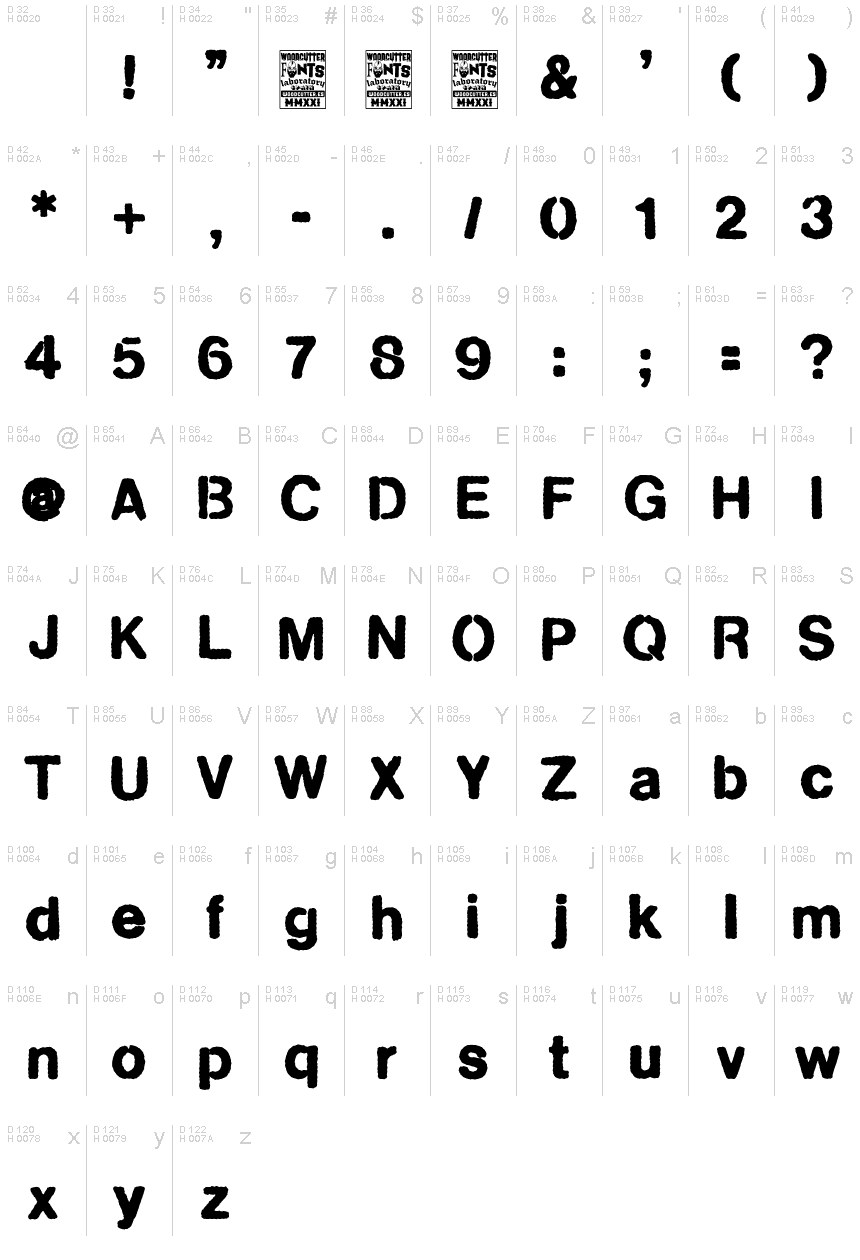
Drama Protocols
Drama Protocols is a bold and edgy display font designed by Woodcutter Manero. Its eroded style gives a grunge effect that is perfect for designs that require a vintage, distressed look. Drama Protocols is ideal for posters, album covers, and book covers. Its versatility and distinct look will make your designs stand out. Embrace the unconventional and add a touch of grit to your designs with Drama Protocols.